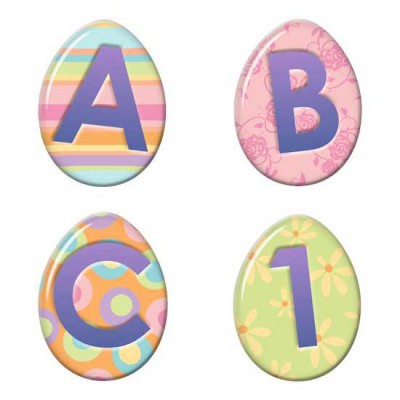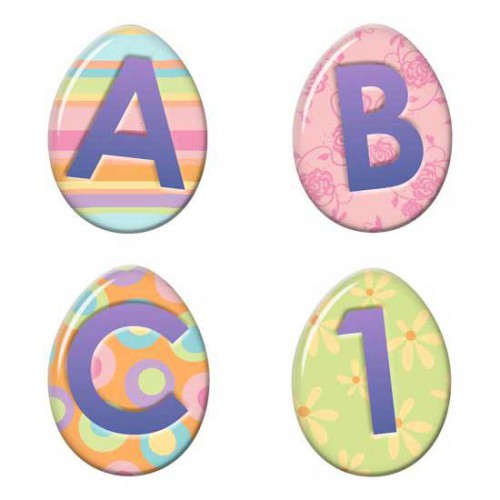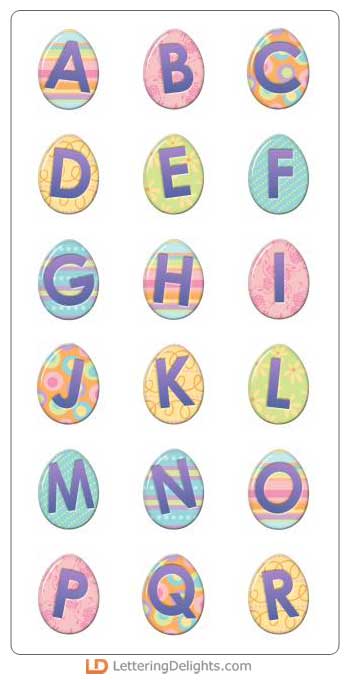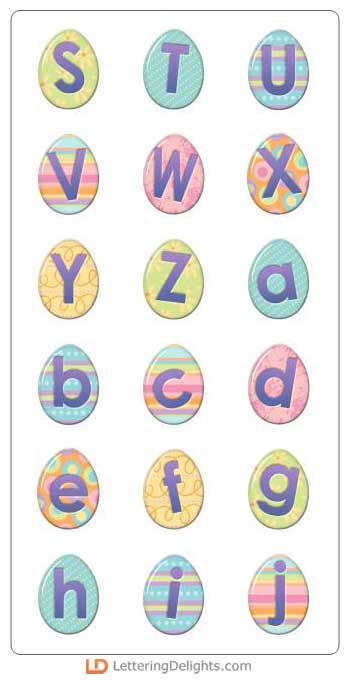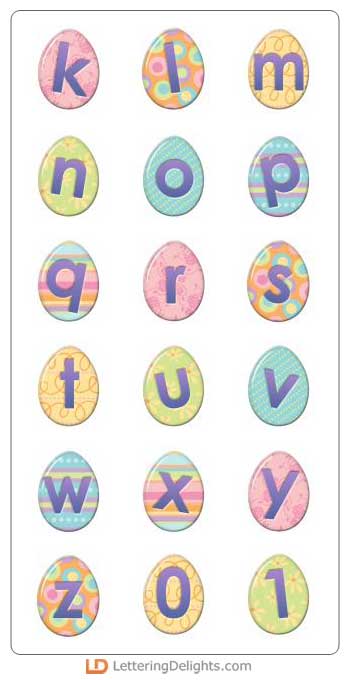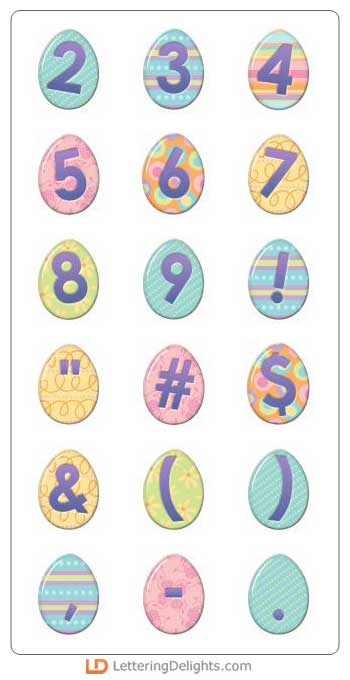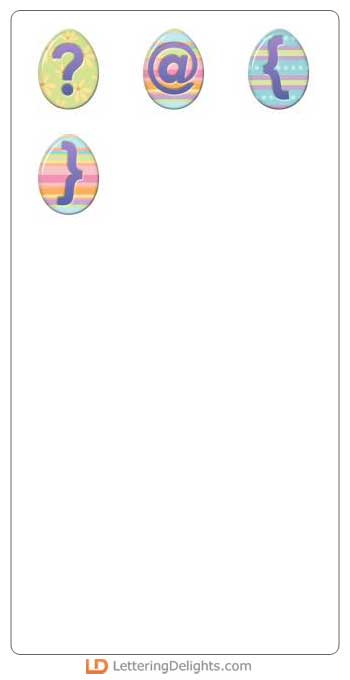
Don't miss all the fun with our Egg Hunt alphabet! This 'egg-stra' enjoyable alphabet is perfect for adorning all your spring time memories or just having a good time making Easter themed digital scrapbook layouts.